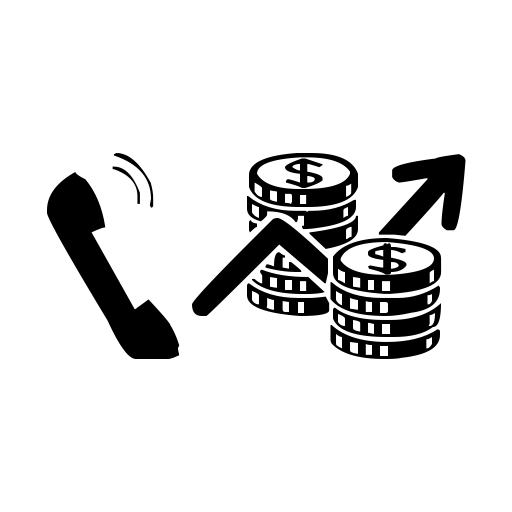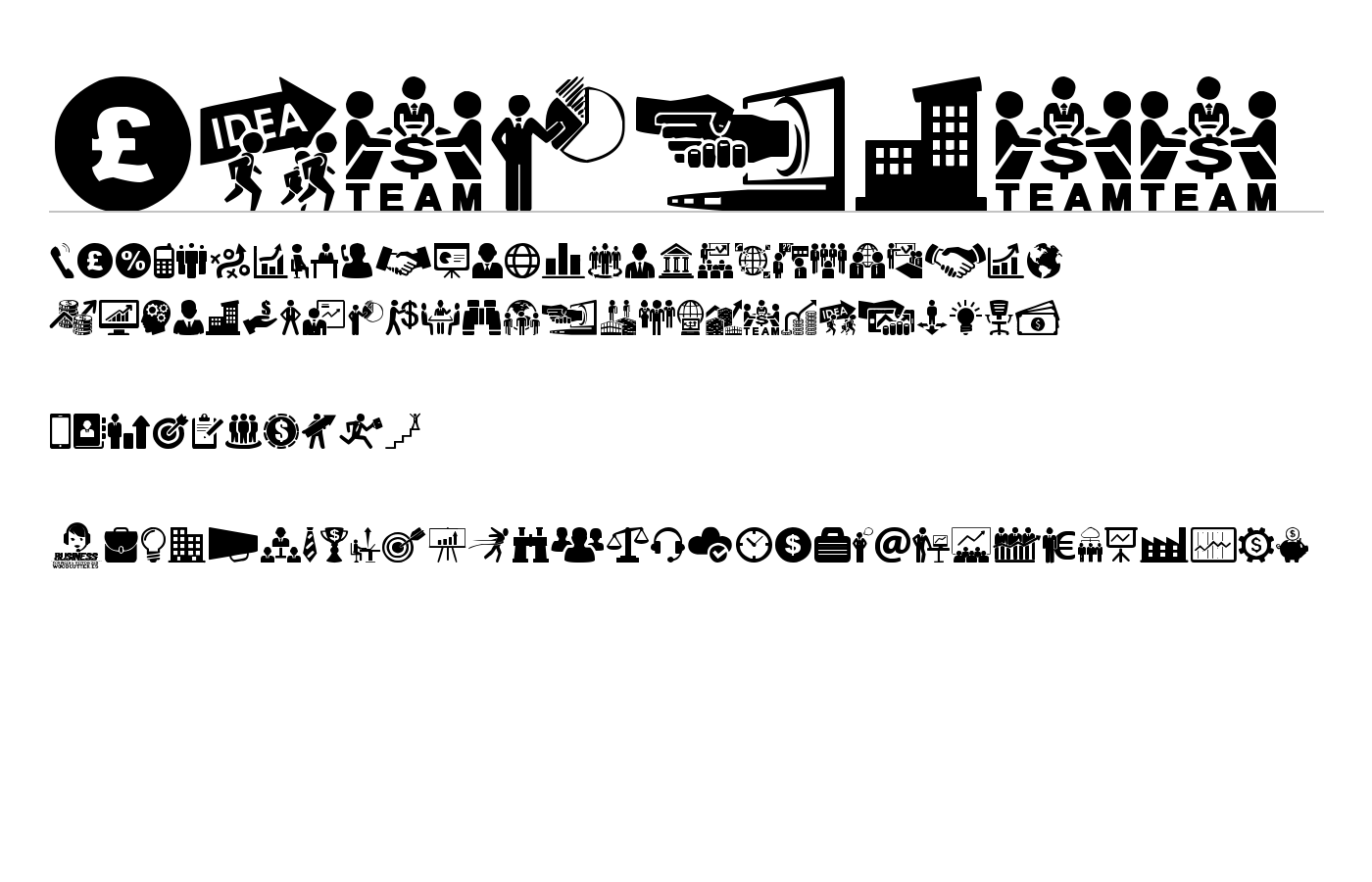
Business Font is a bold, solid icon font designed specifically for professional and corporate use, featuring clear and simple illustrations that represent business concepts like teamwork, finance, and communication. Its straightforward, no-nonsense style with uniform stroke weight makes it perfect for enhancing presentations, websites, and marketing materials where clarity and professionalism are key. This font works best for visual storytelling in business settings, adding a clean and modern touch to any project.
Business Font
About Business Font